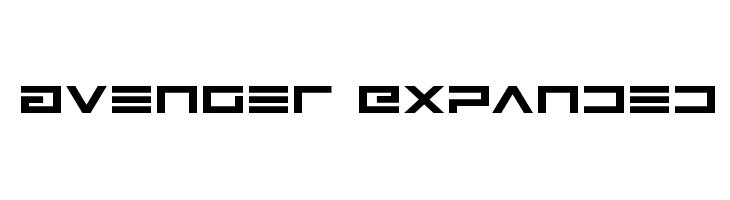
• Avenger Expanded caratteri
A bold, geometric font with a futuristic and industrial style.
• Avenger Expanded Italic caratteri
A bold, expanded, and italicized futuristic font with geometric shapes.
• Avenger Gradient caratteri
A futuristic font with gradient-like horizontal lines and geometric structure.
• Avenger Gradient Italic caratteri
A futuristic, italicized font with a gradient stripe effect, ideal for tech-themed designs.
• Avenger Haltone caratteri
A futuristic, geometric font with bold horizontal lines and a dynamic style.
• Avenger Haltone Italic caratteri
A bold, italicized font with a futuristic halftone effect and tight spacing.
• Avenger Italic caratteri
A bold, angular, and italicized font with a futuristic and dynamic style.
• Avenger Italic caratteri
A bold, futuristic italic font with sharp angles and geometric precision.
• Avenger Laser caratteri
A futuristic, geometric font with bold, angular letterforms.
• Avenger Laser Italic caratteri
A futuristic, angular font with a bold, italicized style.